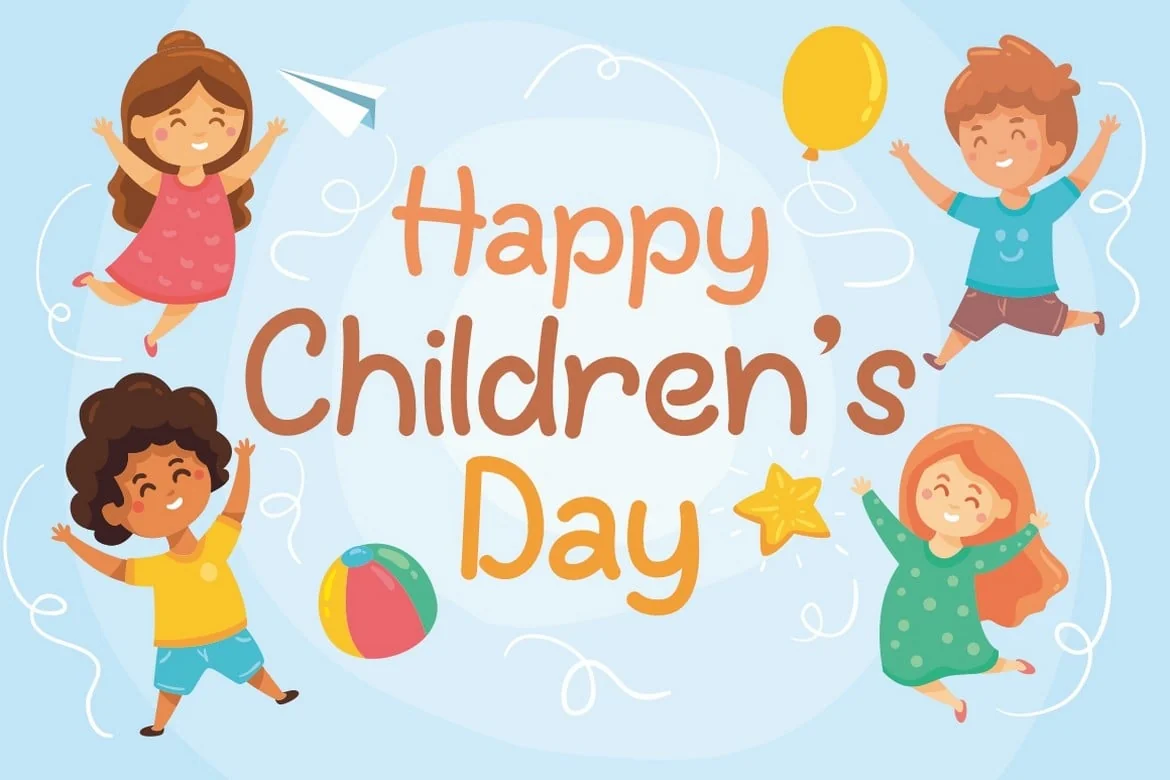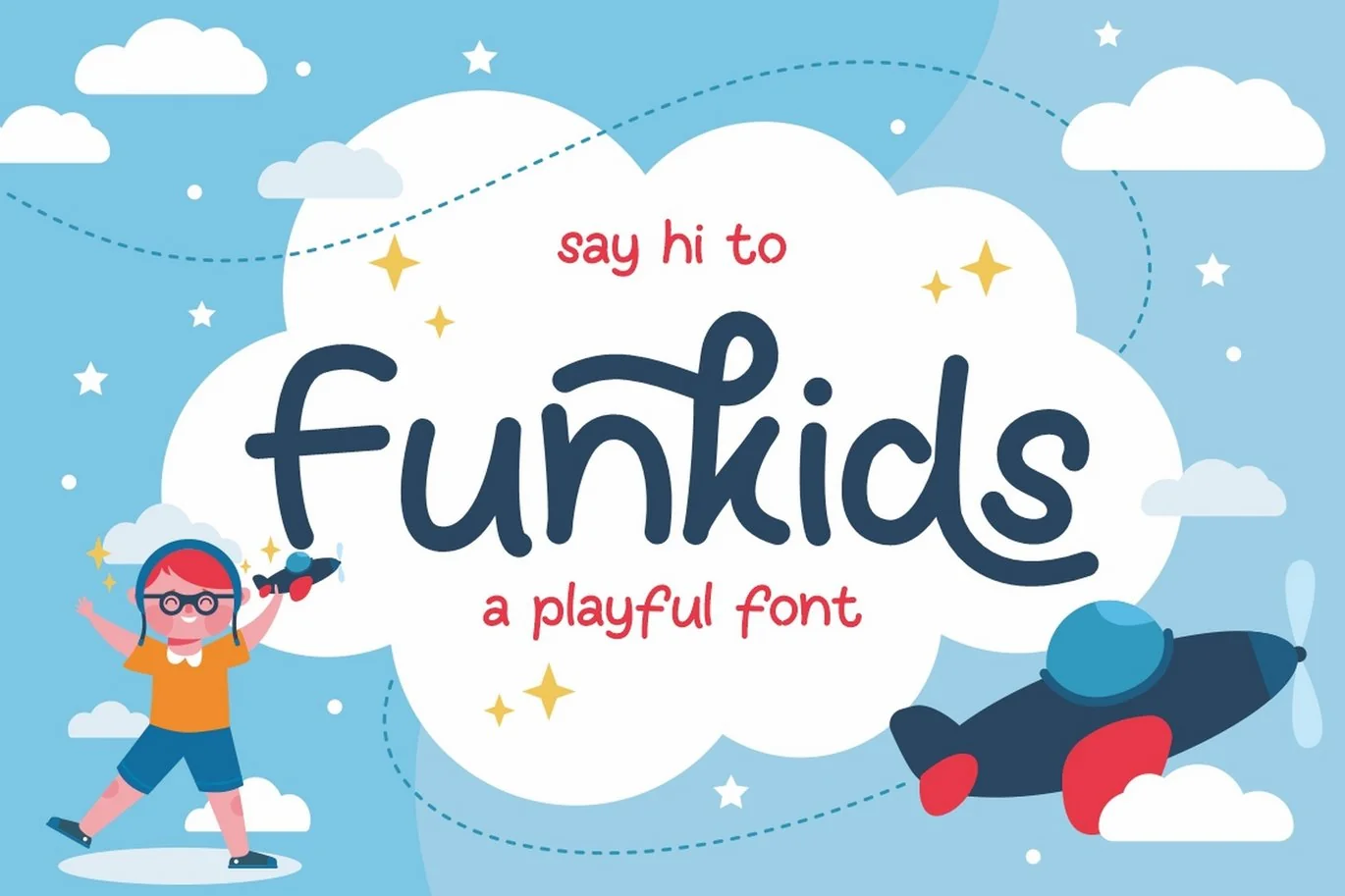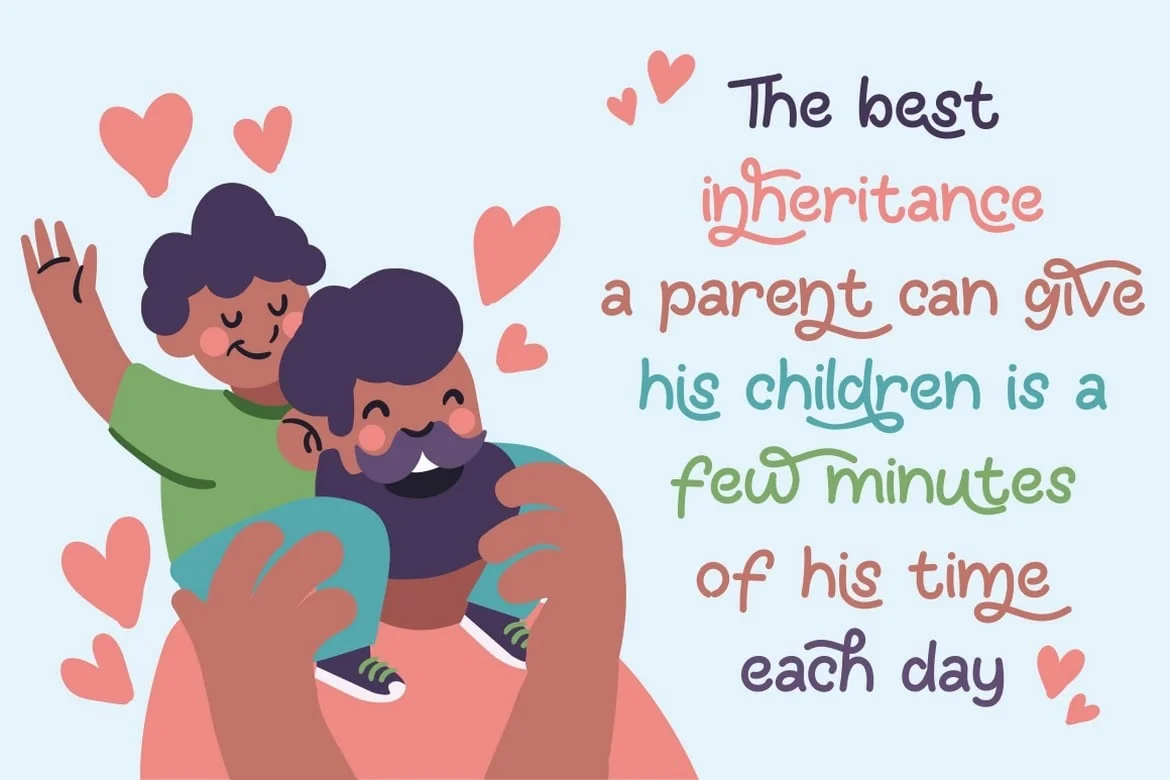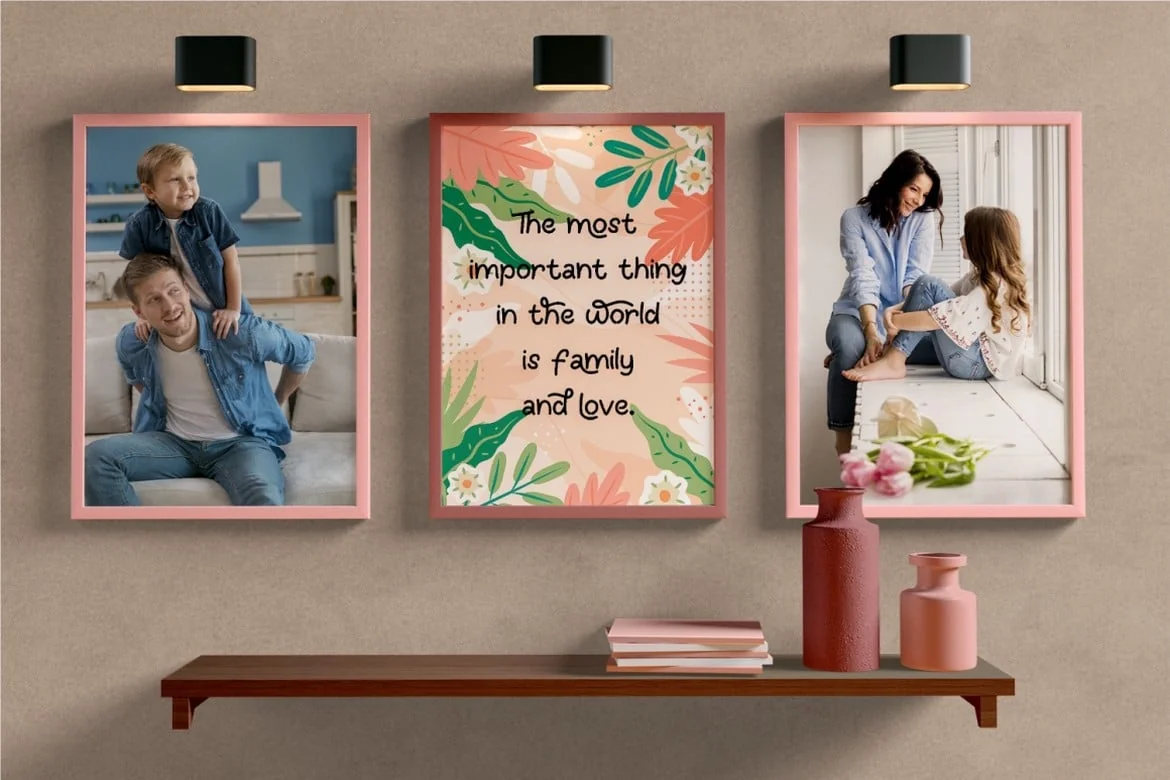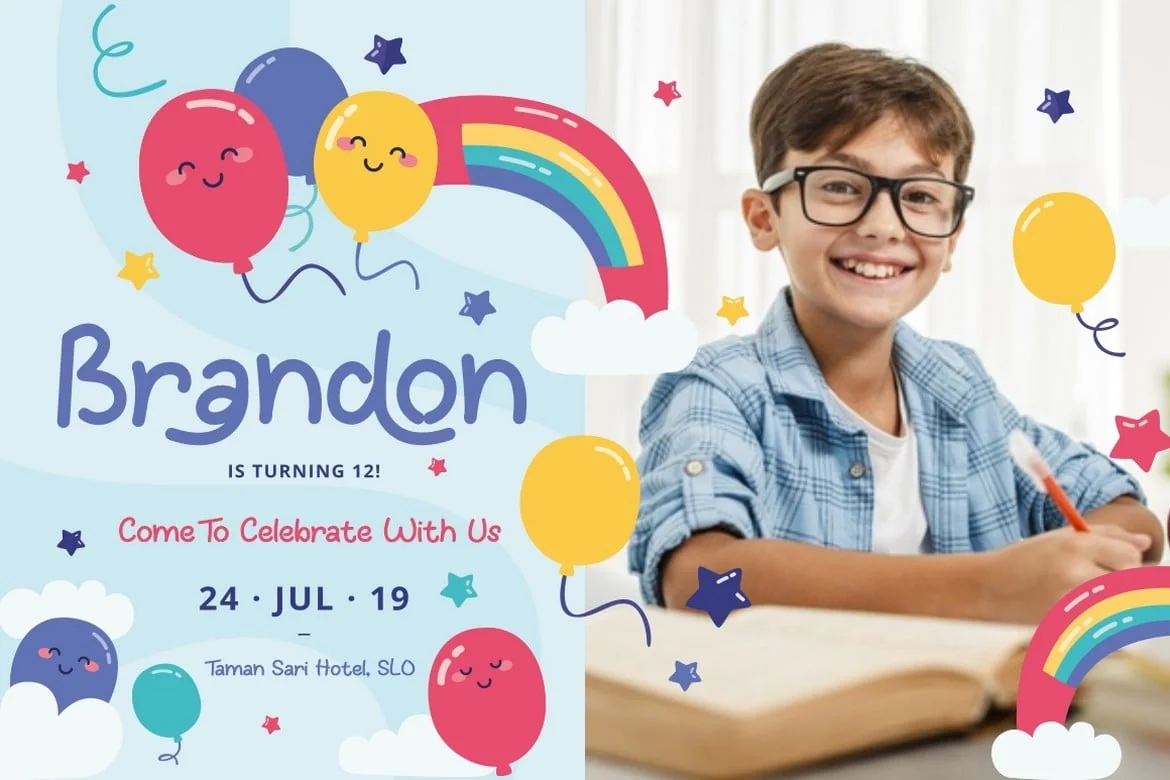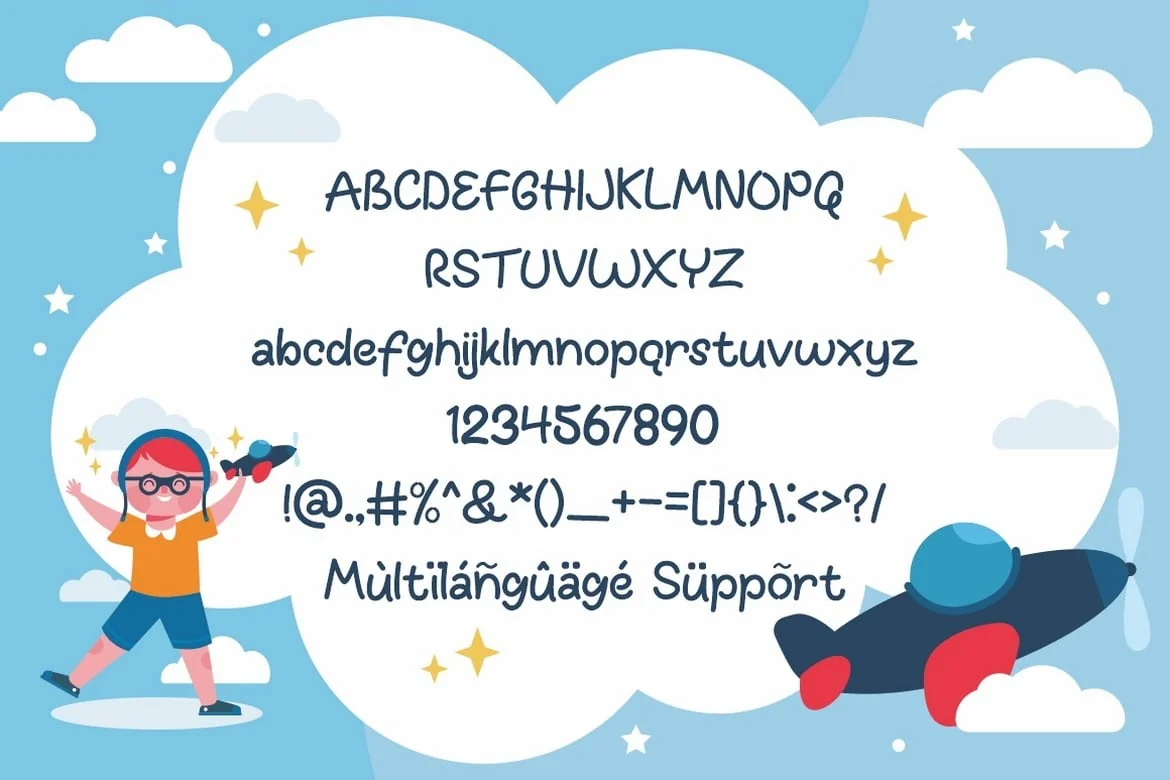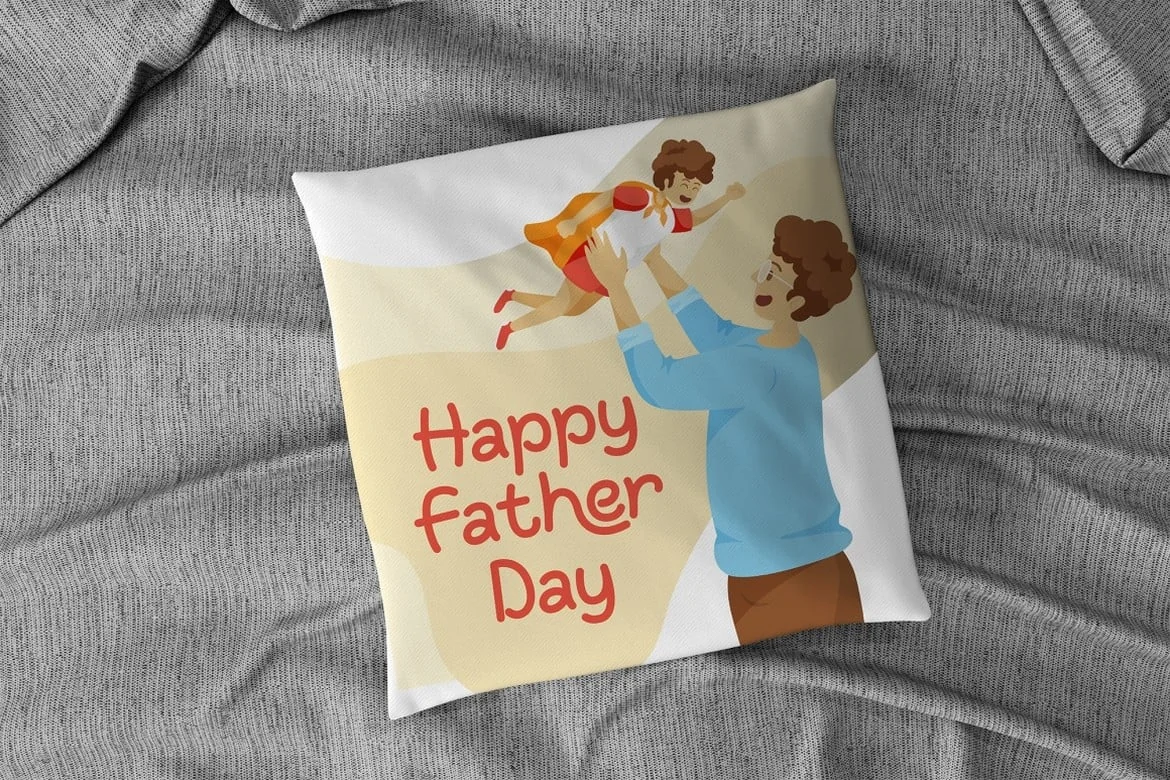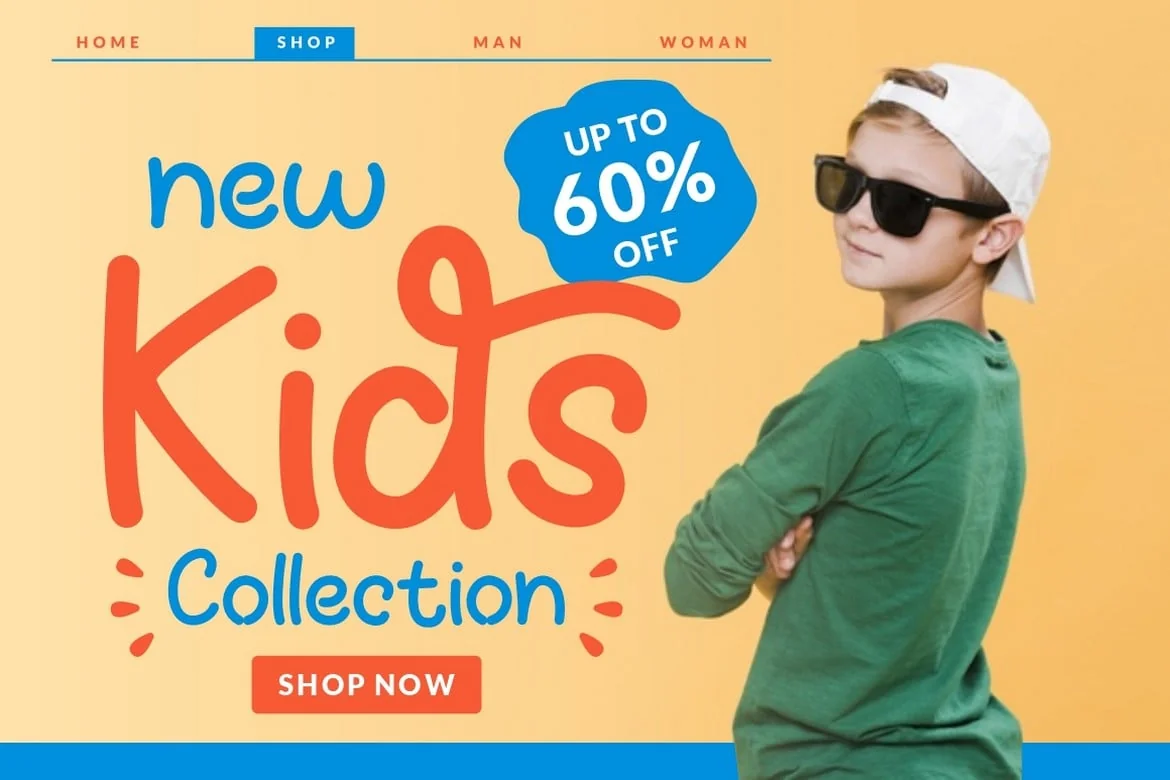
Fun Kids – Playful Font
** Funkids **
Funkids is a playful cute and fun display font. And accompanied by several alternate characters that can make this font more different. As a bonus I also made this font in the decorative version.
Funkids would be perfect for quotes, doodle, comic, books, greeting cards, toys, posters, baby clothing, picture books or anything that requires a fun and happiness look!
** Comes with feature : **
- Number, Punctuation And Symbols
- Multilanguage Support